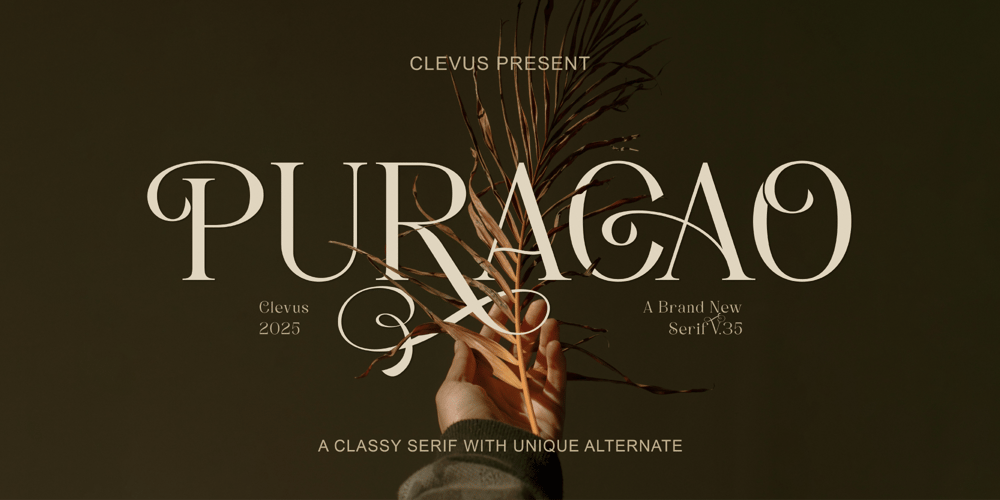
Puracao Font Family was designed by Alfinu Zafir and published by Clevus. Puracao contains 1 styles and family package options. Introducing Puracao, a font that epitomizes modern luxury and elegance. Designed to elevate your brand, Puracao combines contemporary style with timeless sophistication, making it perfect for logos and high-end branding projects.Perfect For:- Luxury Brands: Create logos and branding that exude sophistication and elegance.- High-end Products: Design packaging and marketing materials for premium products.- Event Invitations: Develop stunning invitations for weddings, galas, and exclusive events.- Upscale Marketing: Elevate your marketing materials with a touch of luxury and style.Get Puracao now and let your designs shine!Have a Good Day!